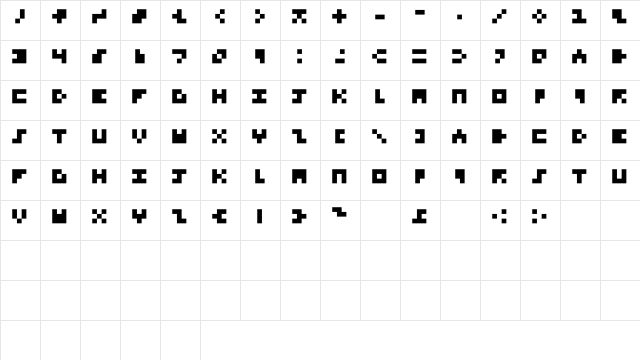
Tiny_Font Medium
Design Context for Tiny_Font Typeface
Tiny_Font takes a measured approach to typography — its balanced proportions and neutral character make it a reliable workhorse for both digital and print work.